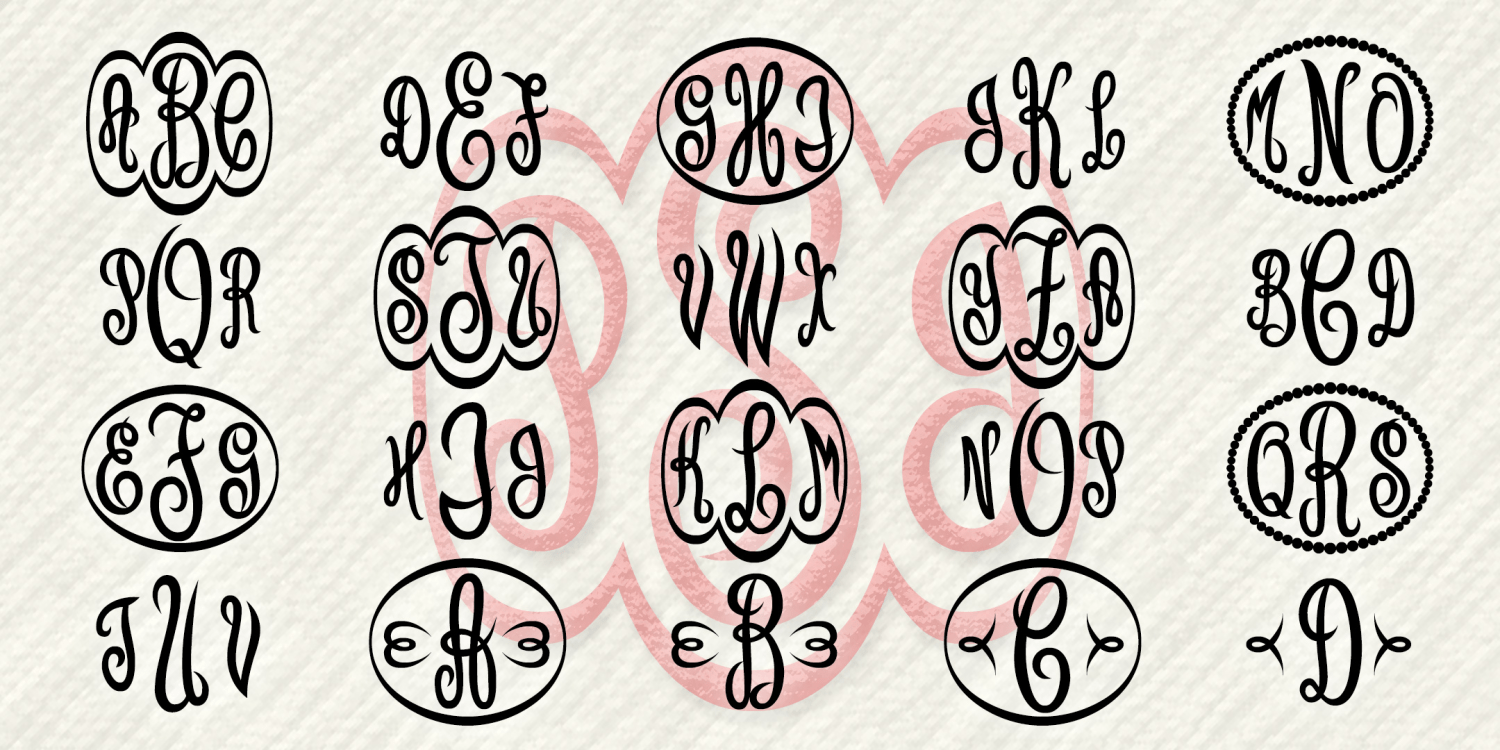
Empress Monograms
Empress Monograms is a unique font that lets you create custom 1- and 3-letter monograms in a distinctive script style inspired by classic embroidery. Includes a variety of decorative frames for more possibilities.